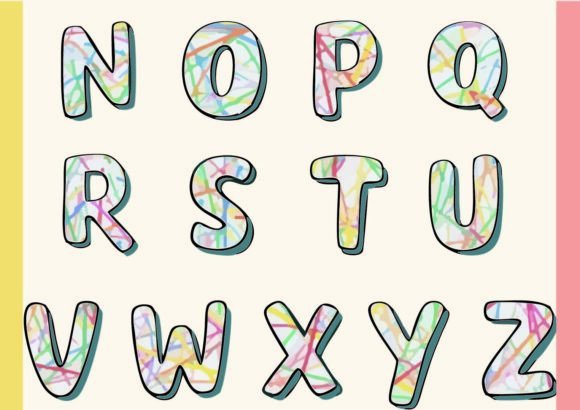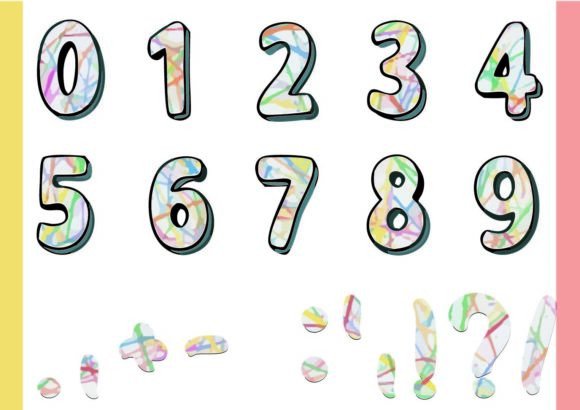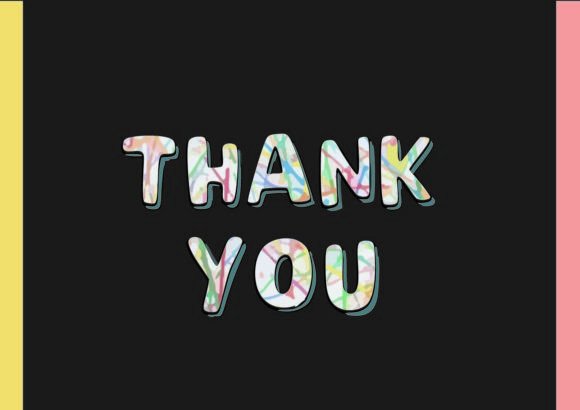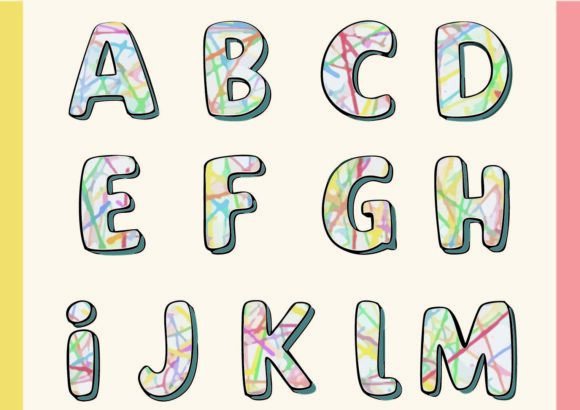
Ayla Font: A Colorful Heaven for Designers and Crafters
Are you ready to add a pop of color to your designs? Look no further than Ayla Font, a stunning color font that will take your typography to the next level. In this article, we’ll dive into the world of Ayla Font, exploring its unique features, compatibility, and uses. Whether you’re a designer, crafter, or simply a font enthusiast, you’ll love what Ayla Font has to offer.
What is Ayla Font?
Ayla Font is a color font, also known as a chromatic font, that boasts a unique feature: every single glyph has a different set of colors. This means that each letter, number, and symbol is a miniature masterpiece, with intricate paths and connections that make it a typographic painting. The result is a colorful heaven that will add visual interest to any design.
Design Possibilities
With Ayla Font, the design possibilities are endless. Imagine using it to create:
- Vibrant social media graphics
- Eye-catching posters and flyers
- Beautiful digital art
- Custom crafts, such as papercraft or quilting
The font’s colorful and playful nature makes it perfect for projects that require a bit of whimsy and personality.
Tips for Using Ayla Font
To get the most out of Ayla Font, here are a few tips:
- Experiment with different font sizes to see how the colors and paths change.
- Combine Ayla Font with other fonts to create interesting contrasts.
- Use the font’s colorful nature to add visual interest to text-heavy designs.
- Don’t be afraid to get creative and try new things – Ayla Font is all about experimentation and self-expression!
Who is Ayla Font for?
Ayla Font is perfect for:
- Graphic designers looking to add a pop of color to their designs.
- Crafters who want to create custom, colorful projects.
- Digital artists who want to experiment with typography.
- Anyone who loves colorful, playful design.